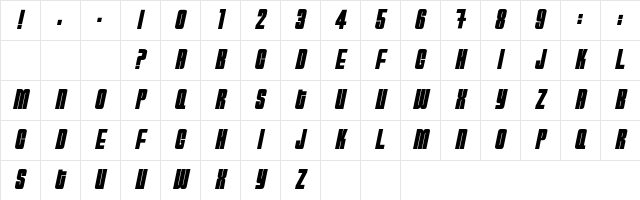
HydrogenBomb Regular Free Font
HydrogenBomb Regular
Design Context for HydrogenBomb
HydrogenBomb is a composed and adaptable typeface that performs quietly and consistently across a wide range of design contexts.